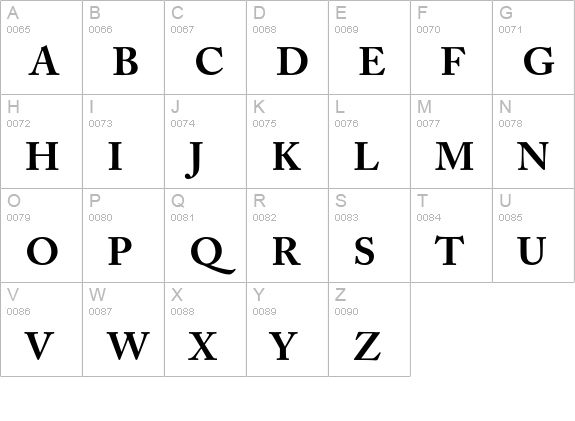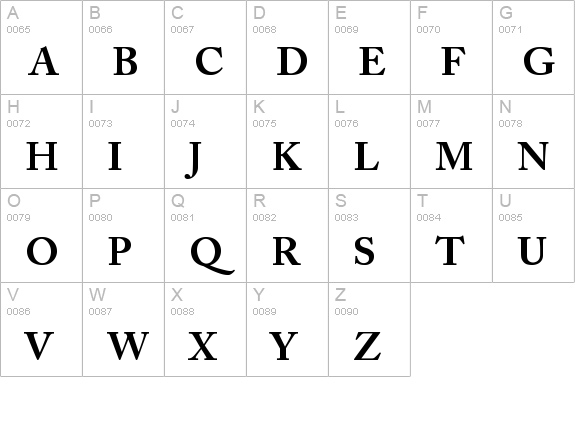
Adobe Caslon Pro Bold Font Details
Adobe Caslon Pro Bold is a strong, high-contrast variant in the Adobe typeface family \xE2\x80\x94 well suited to headlines, attention-grabbing titles, and strong calls-to-action.
Adobe Caslon Pro Bold is a timeless and elegant serif font that exudes sophistication and authority. With its bold weight, it commands attention and makes a strong visual impact in any design project. The sturdy serifs and classic letterforms of Adobe Caslon Pro Bold lend a sense of tradition and credibility to any text it graces. Whether used for headlines, body text, or signage, this font conveys a sense of gravitas and professionalism. Best of all, Adobe Caslon Pro Bold is freely available to download at FontsMarket.com. Now, you can easily access this premium font for your personal or commercial projects without any hassle. Enhance your designs with the enduring beauty and versatility of Adobe Caslon Pro Bold today!